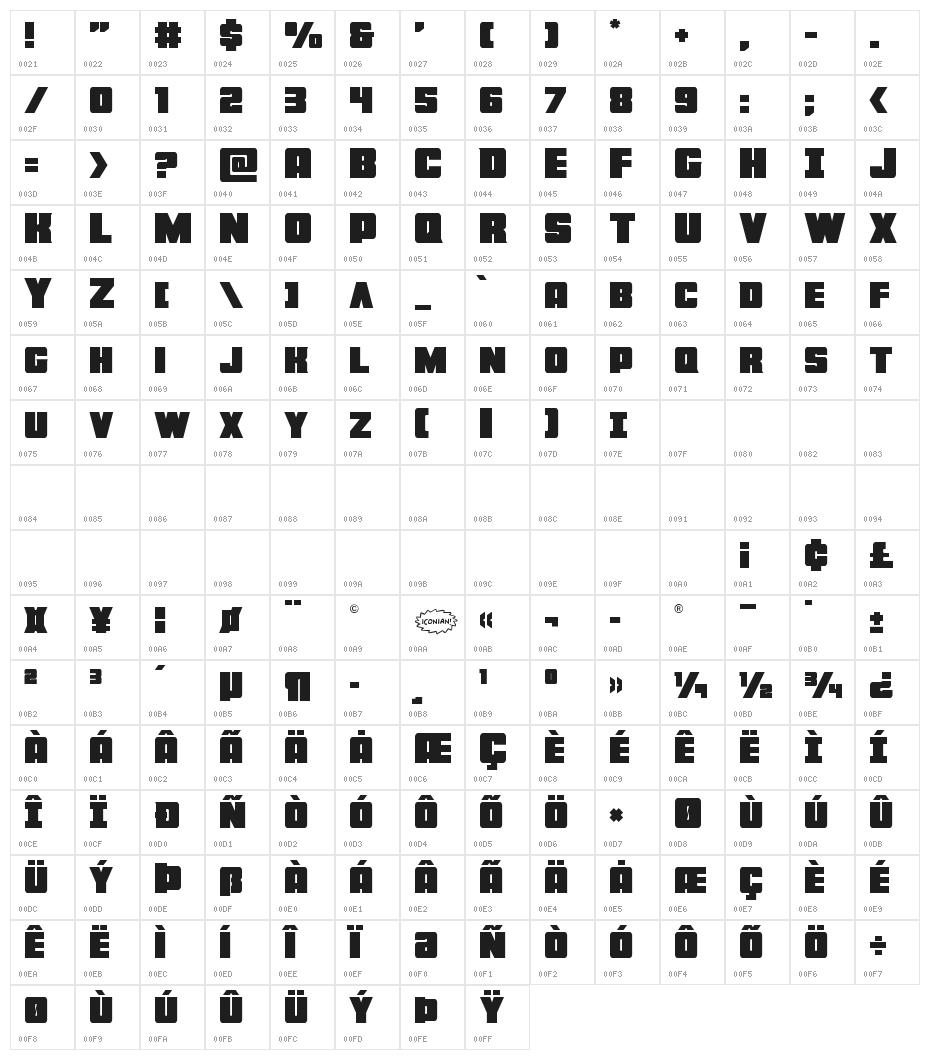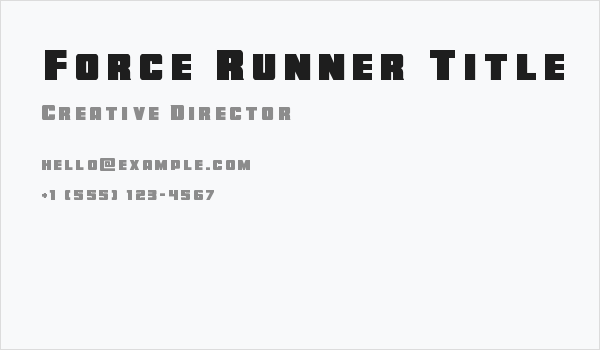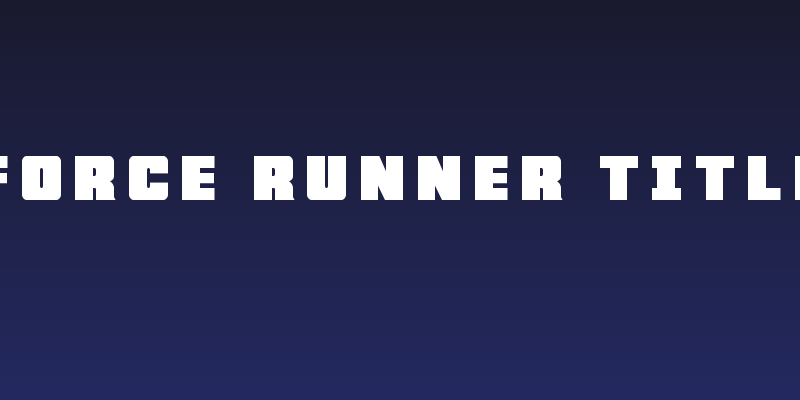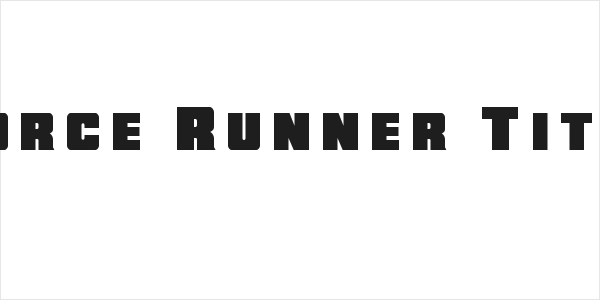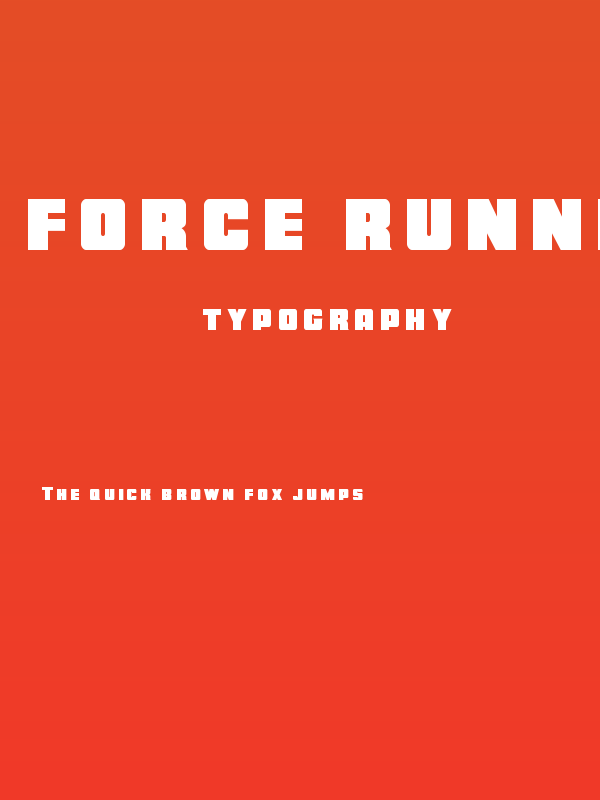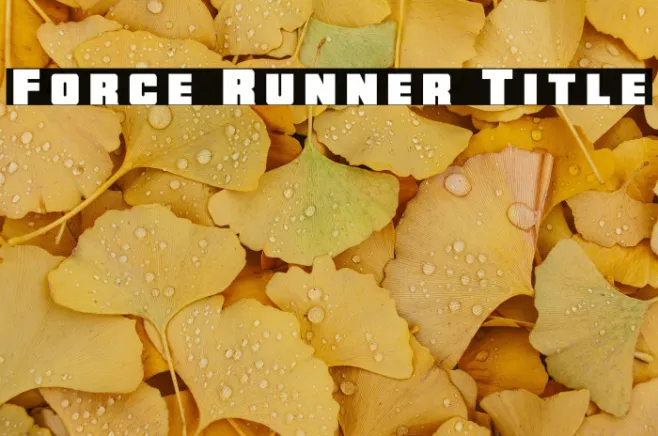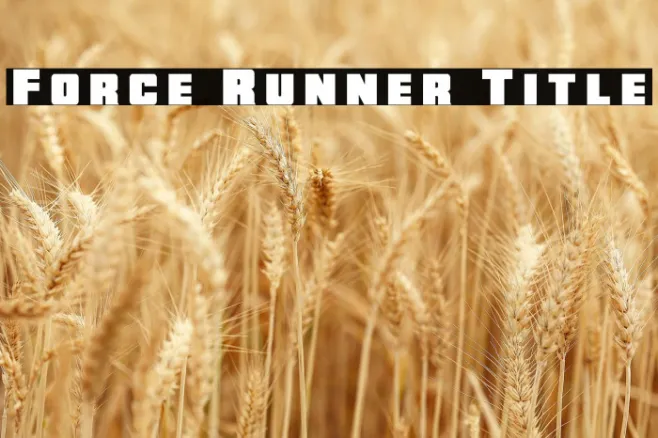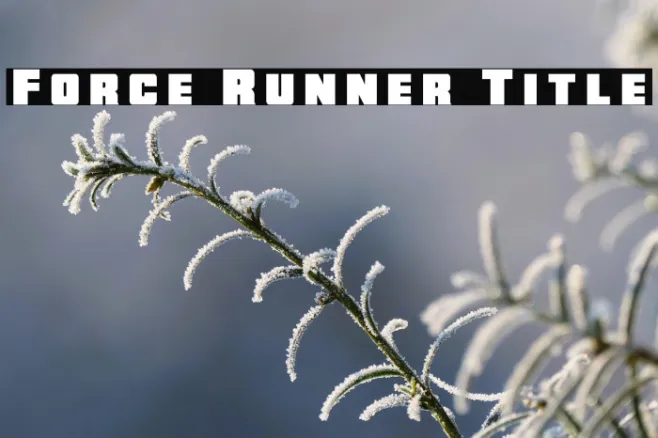
Force Runner Title Font
Force Runner Title Description
This bold and impactful font features a strong, geometric design with thick, blocky letters that convey a sense of power and stability. The uppercase letters are uniform in height and width, creating a cohesive and structured appearance. The numbers and special characters maintain the same boldness, ensuring consistency across all text elements. The font's design is reminiscent of industrial or military styles, making it ideal for projects that require a commanding presence. Its simplicity and clarity make it highly legible, even at smaller sizes.
| Proposed Projects | Ideal for use in posters, headlines, branding, and any project requiring a bold, impactful typeface. |